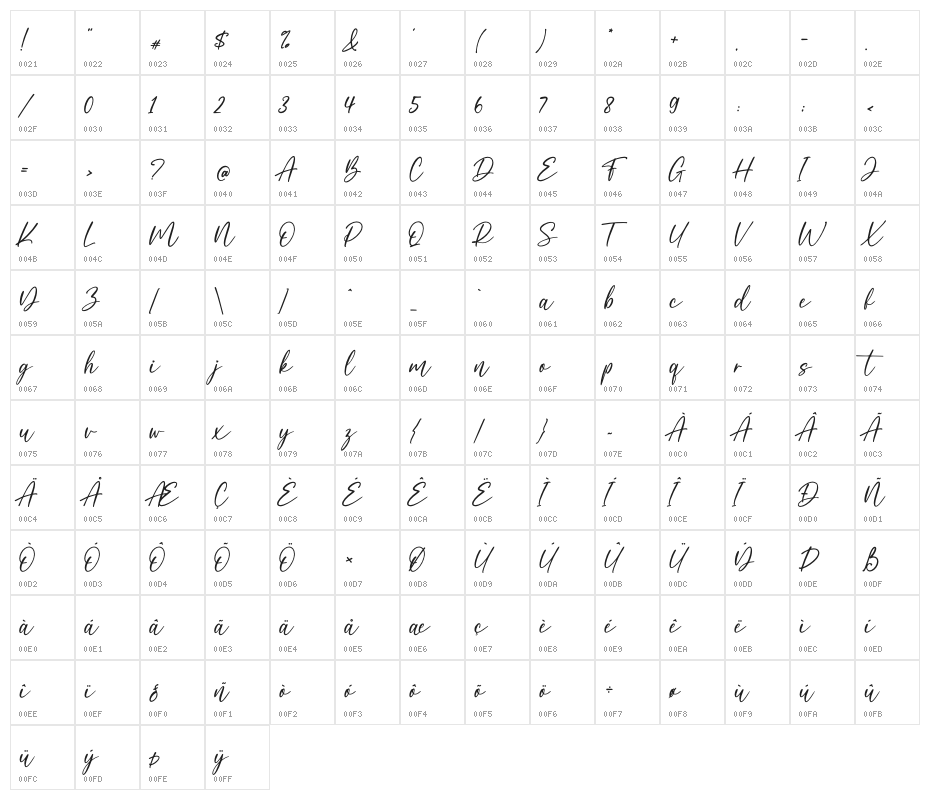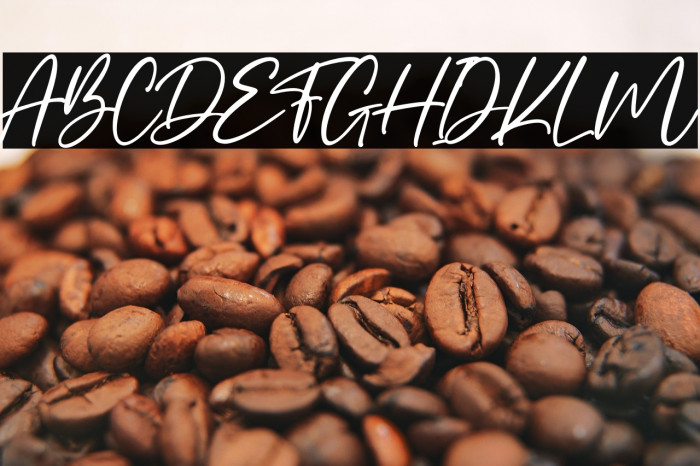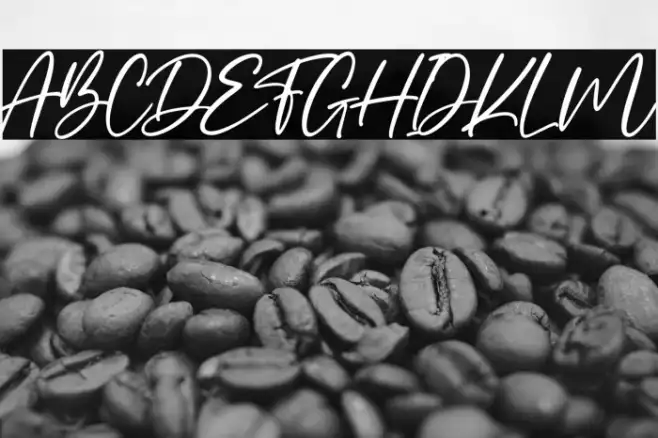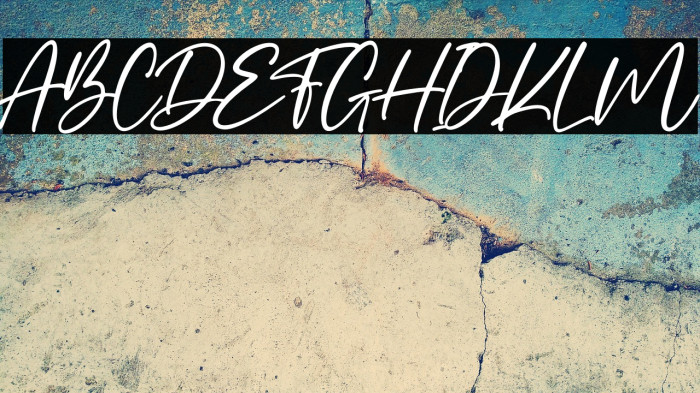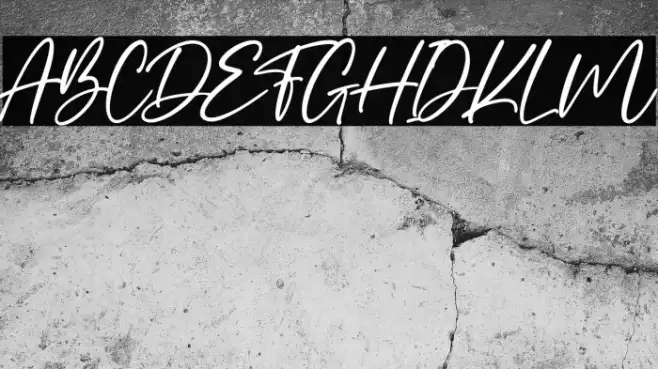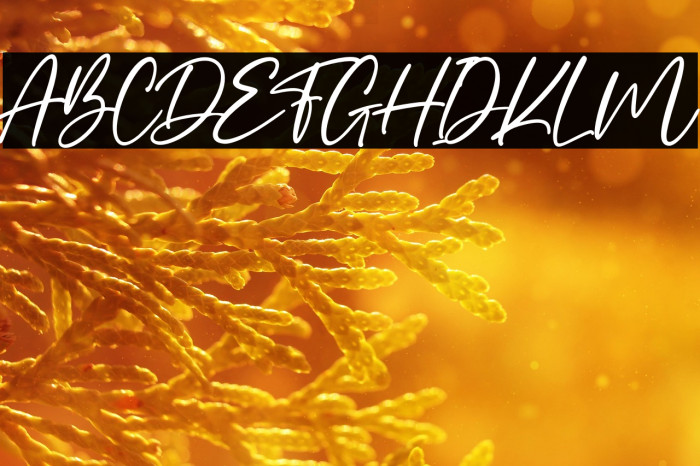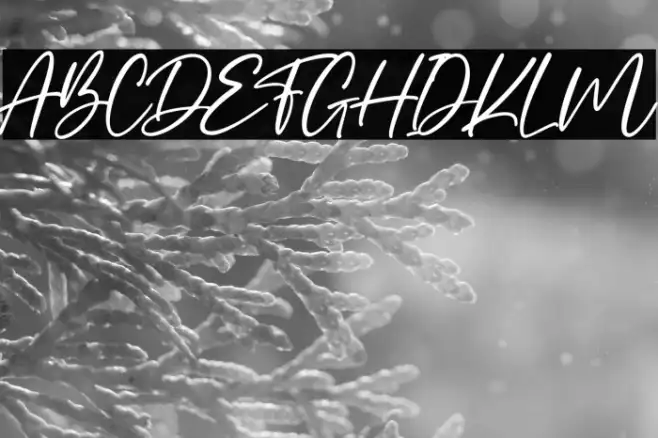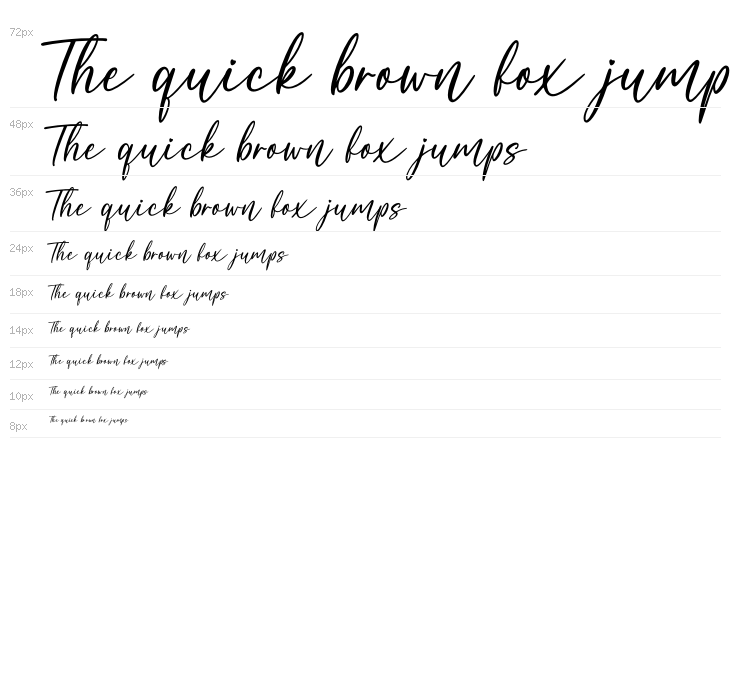
Lamina Font
Lamina Description
This font exhibits a flowing, cursive style with elegant, sweeping strokes that give it a handwritten appearance. The letters are interconnected, creating a seamless and fluid look. The uppercase characters are bold and prominent, while the lowercase letters maintain a consistent flow with slightly varying heights. The numerals and special characters are designed to match the script style, maintaining the overall aesthetic. The font's design is both sophisticated and approachable, making it suitable for a variety of creative applications.
| Proposed Projects | Ideal for wedding invitations, greeting cards, branding, and logo design where a personal touch is desired. |